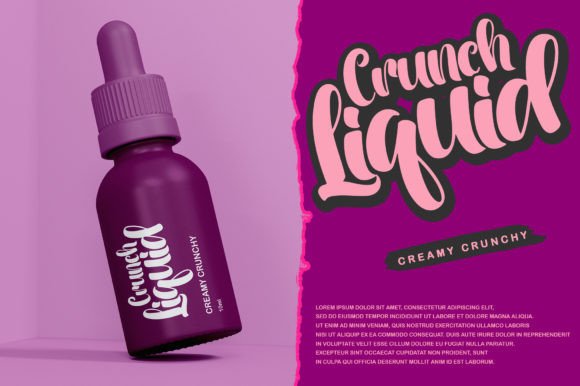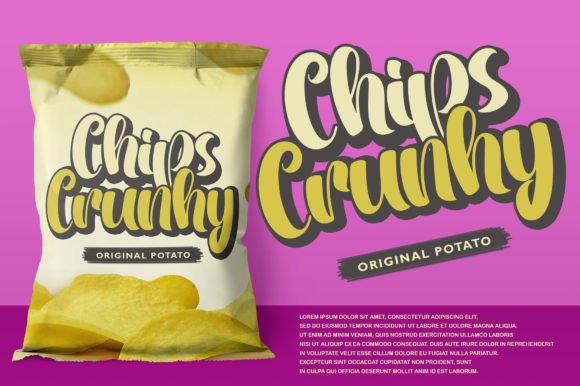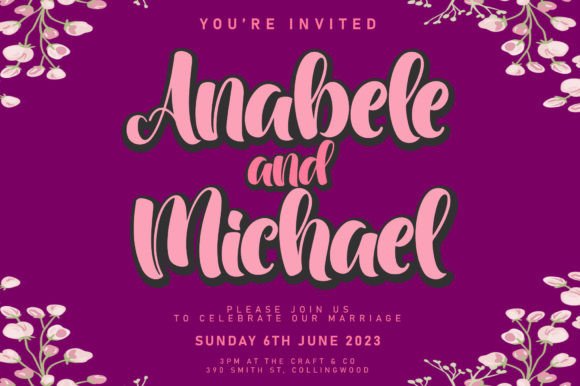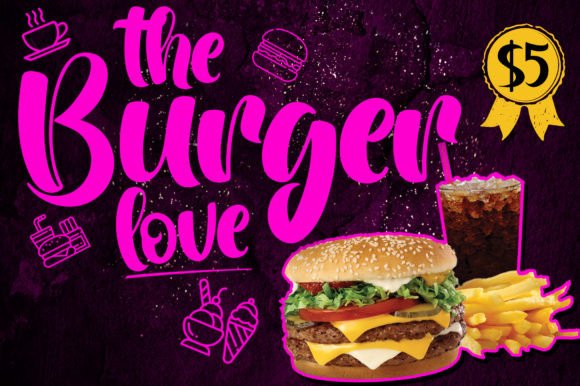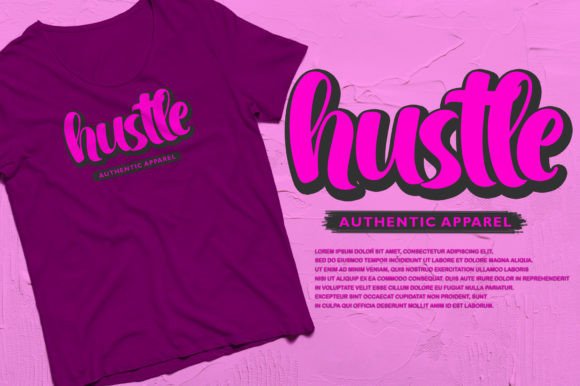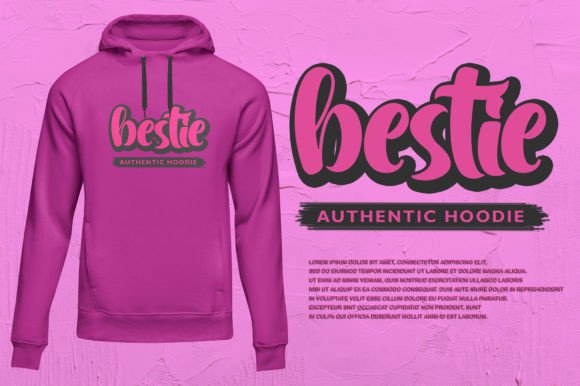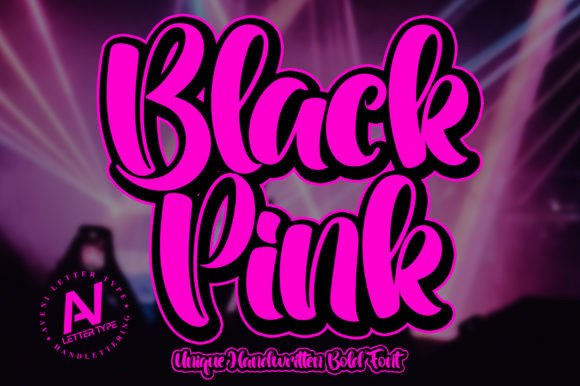
The Ultimate Guide to Black Pink Font: Adding a Touch of Friendliness to Your Designs
I’ll never forget the time I was working on a project for a client who wanted a fun and playful vibe, but I was struggling to find the right font to convey that feeling. That’s when I stumbled upon Black Pink Font, and it instantly became my go-to choice. In this article, I’ll share my experience with this amazing font, its features, and how to make the most of it in your designs.
An Honest Review of Black Pink Font
Black Pink Font is a fun and bold handwritten font that conveys impeccable friendliness. Here are some things I love about it:
• ✨ Unique and playful style: Black Pink Font has a distinct, hand-drawn feel that’s perfect for adding a personal touch to your designs.
• ✅ Highly versatile: Whether you’re working on crafts, digital design, presentations, or making greeting cards, this font fits right in.
• 💕 Easy to read: Despite its playful nature, Black Pink Font is surprisingly easy to read, even in smaller sizes.
Of course, no font is perfect, and here are a few quirks to keep in mind:
• 🤔 Limited use in formal designs: Due to its playful nature, Black Pink Font might not be the best choice for formal or professional designs.
• ⚠️ Some letters may require manual kerning: As with any handwritten font, you might need to adjust the kerning of certain letters to get the best results.
The Backstory of Black Pink Font
Black Pink Font was designed with the intention of creating a fun and friendly font that’s perfect for everyday designs. The designer wanted to create a font that would bring a smile to people’s faces and add a touch of personality to their projects.
What is Black Pink Font best used for? Black Pink Font is perfect for crafts, digital design, presentations, making greeting cards, and any other project that requires a friendly and playful touch.
Is Black Pink Font easy to read? Yes, despite its playful nature, Black Pink Font is surprisingly easy to read, even in smaller sizes.